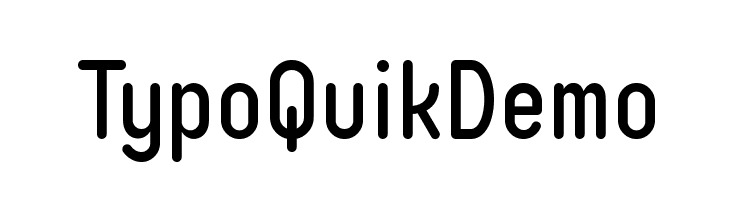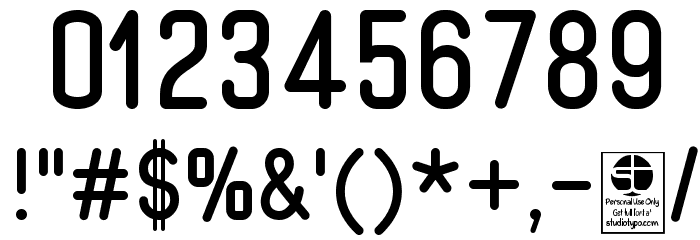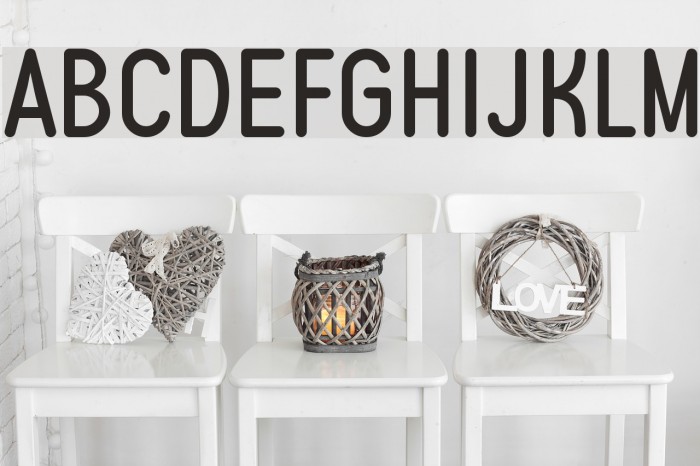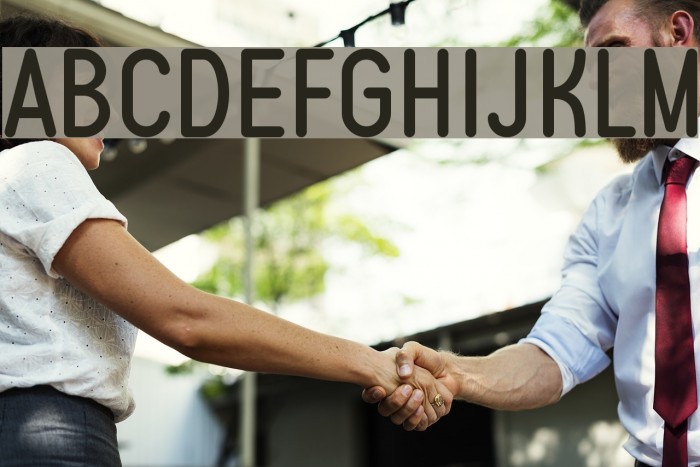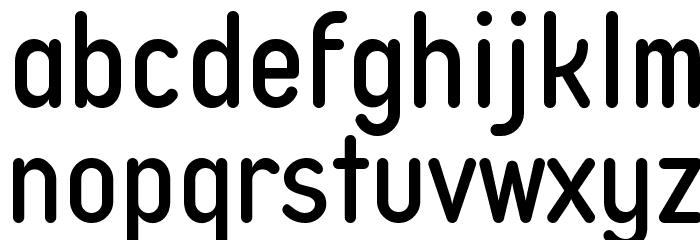
Typo Quik Demo
This font features a clean and modern sans-serif style with rounded edges, giving it a friendly and approachable appearance. The characters are evenly spaced, contributing to excellent readability. The uppercase letters are slightly taller than the lowercase, maintaining a consistent line weight throughout. Numbers and special characters are designed to match the overall aesthetic, ensuring uniformity across all text elements. Its simplicity and clarity make it suitable for a wide range of applications, from digital interfaces to print media.
A modern, rounded sans-serif font with excellent readability.
- Proposed Projects: Ideal for user interfaces, branding, signage, and educational materials.